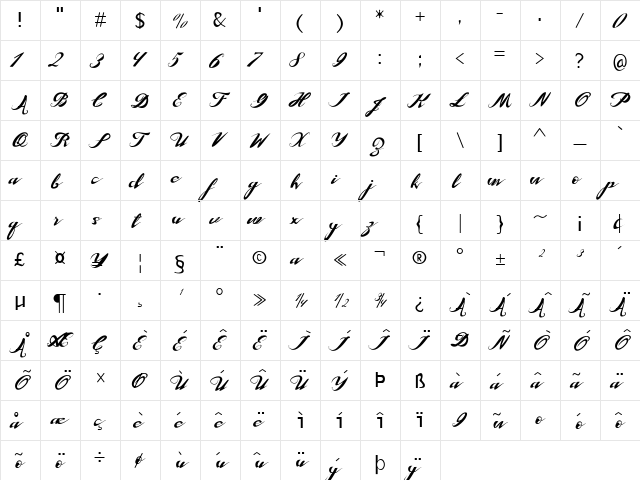
Tranformer Regular
| Foundry | sinfa |
| Designer | m.akbar |
Design Context for Tranformer Typeface
Tranformer is a composed and adaptable typeface that performs quietly and consistently across a wide range of design contexts.